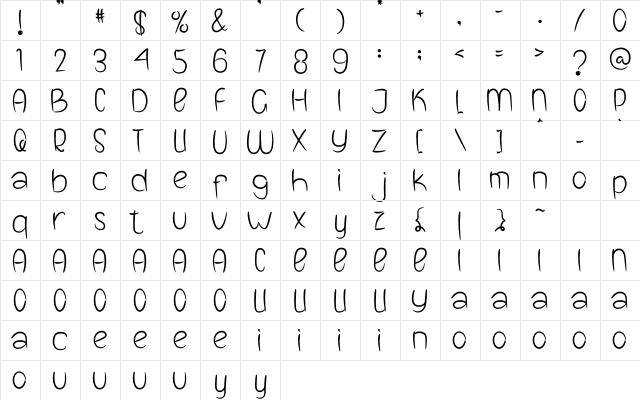
BOOK LINE Regular
Design Context for BOOK LINE Typeface
BOOK LINE takes a measured approach to typography — its balanced proportions and neutral character make it a reliable workhorse for both digital and print work.